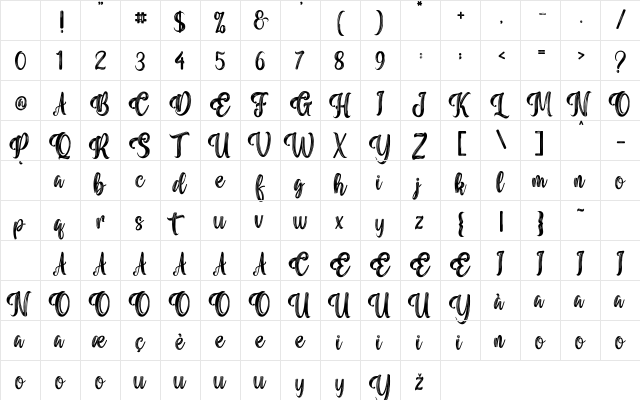
Complete Vintage Brush Regular glyph index. Displaying only characters natively supported by Vintage Brush Regular font.
Vintage Brush wears its vintage influences proudly, with letterforms that recall mid-century signage, classic packaging, and nostalgia-driven design.
Font Pairing: Combine Vintage Brush with a simple slab or neutral sans - period-accurate companions reinforce the vintage feel without competing for attention.
Pro Tip: Lean into Vintage Brush's period character by pairing it with aged paper textures, muted colour palettes, and vintage illustration styles.